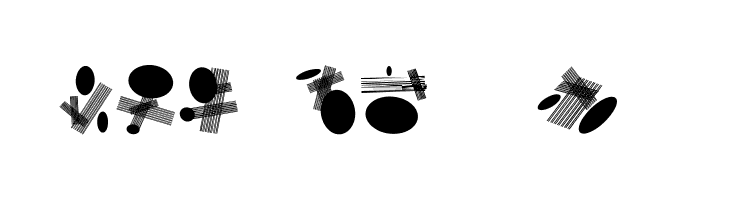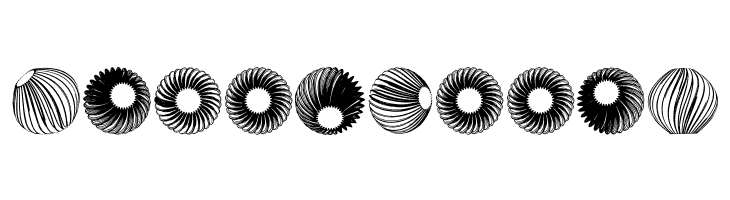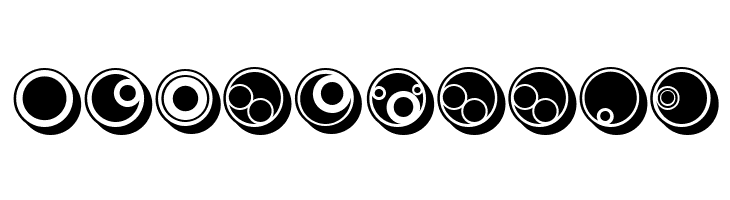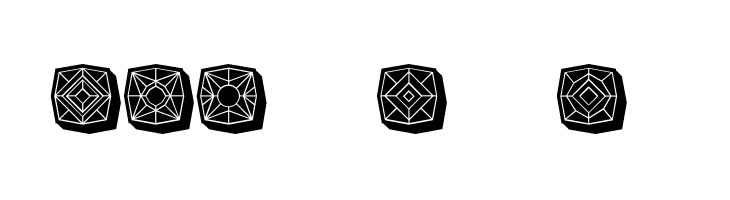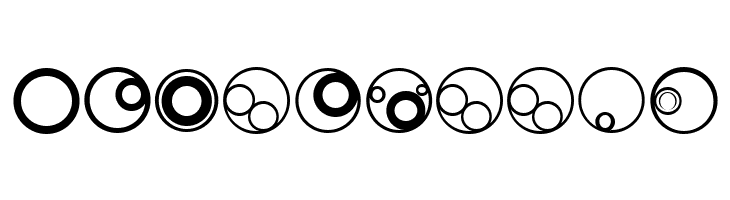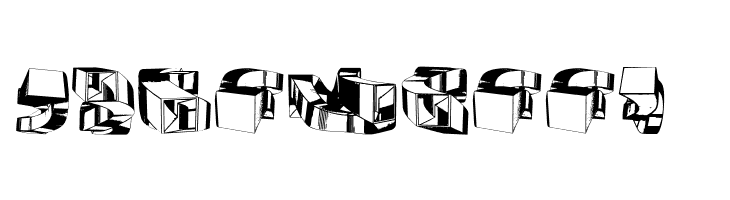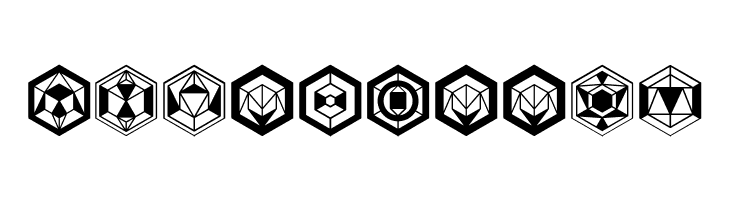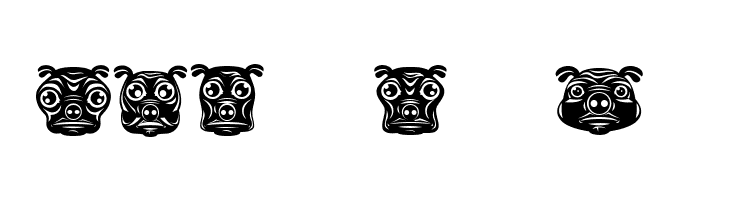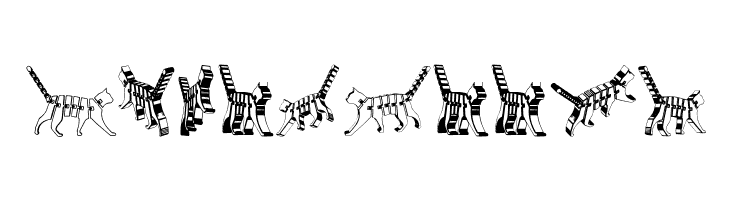
• Circle and Line Regular
An abstract, geometric font using circles and lines for artistic expression.
• Enfeite Regular
A decorative font with intricate geometric patterns and optical illusion effects.
• Spiral Object 3D Regular
Abstract 3D spiral objects form each character in a decorative style.
• Circles Regular
A decorative font with characters formed by concentric circles, offering a modern and abstract style.
• Maumbo Regular
Intricate geometric shapes within hexagonal outlines, offering a modern and decorative style.
• Cycles Regular
A decorative font with abstract circular patterns and geometric designs.
• Object 3D Regular
A bold, 3D geometric font with a modern, futuristic style.
• Hexagons Regular
A decorative font with characters enclosed in hexagonal shapes, featuring geometric patterns.
• Pigs Regular
A whimsical font featuring stylized pig faces as characters.
• Cat 3D Regular
A whimsical, cat-themed decorative font with 3D effects.